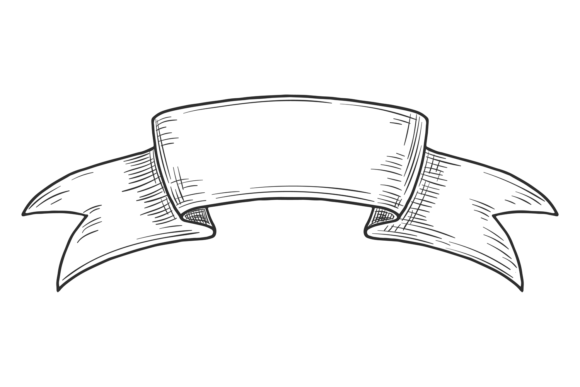
Medieval Engraving Ribbon Flag: Decorati for Vintage Design
The world of typography is vast, but certain styles carry a distinct weight, a story etched into every curve and stroke. Medieval Engraving Ribbon Flag. Decorati is one such typeface. It isn’t just a collection of letters; it’s a design asset that channels the elegance of classical engraving and the bold presence of vintage display type. For designers and creators looking to add a layer of historical sophistication to their work, this font offers a compelling solution. It blends the ornate detail of engraved serifs with the dramatic flair of decorative ribbon elements, creating a typeface with real personality.
Anatomy of a Distinctive Typeface
At its core, Medieval Engraving Ribbon Flag. Decorati is a premium display font. Its visual characteristics are immediately recognizable. The letterforms are built on a strong serif foundation, reminiscent of inscriptions found on old maps, currency, or formal certificates. What sets it apart are the intricate details—subtle cross-hatching effects and fine lines that mimic the look of metal engraving. The "ribbon flag" component adds a unique flourish, often seen in initial capitals or as part of ligatures, giving text a dynamic, almost three-dimensional quality.
This font’s personality is authoritative yet artistic. It speaks of heritage, craftsmanship, and importance. It’s not a workhorse for body text; instead, it’s a creative font designed to command attention in headlines, logos, and short, impactful statements. Its style leans heavily into vintage and classical aesthetics, making it ideal for projects that aim to evoke tradition, luxury, or a sense of established credibility. The overall appeal lies in its ability to make a design feel considered and intentional, instantly elevating the perceived value of the content it presents.
Where This Font Truly Shines
Understanding where to deploy Medieval Engraving Ribbon Flag. Decorati is key to leveraging its strengths. Its ornate nature means it thrives in contexts where display typography is paramount.
Branding and Logo Design
For businesses in sectors like craft brewing, artisanal goods, luxury services, or boutique hospitality, this font can become a cornerstone of a strong brand identity. A logo set in this typeface immediately communicates quality and tradition. Think of a distillery’s bottle label, a high-end butcher’s signage, or the masthead for a heritage publication. It works exceptionally well for monograms and standalone wordmarks where each letter can be appreciated as a piece of art. When used for a brand name, it fosters instant recognition and a perception of expertise.
Editorial and Packaging Design
In editorial design, this font excels for chapter titles, pull quotes, or section dividers in magazines, books, and annual reports. It adds a touch of classic authority without feeling stale. For packaging design, it’s a natural fit. Imagine it on coffee bags, chocolate bar wrappers, or cosmetic boxes where the goal is to suggest artisanal craftsmanship and premium ingredients. The engraved texture translates beautifully to print, especially on textured papers or with embossing and foil stamping techniques.
Digital and Social Media Applications
While rooted in historical style, this font has a place in modern digital spaces. It can make a website’s hero section or a call-to-action button stand out dramatically. For social media graphics, it’s perfect for creating quote images, announcement banners, or profile branding that needs to cut through the noise. Its visual weight ensures it remains readable even at smaller sizes on a screen, though careful testing is always recommended. Using it for a podcast cover art or a YouTube channel banner can instantly establish a sophisticated visual theme.
Practical Guidance for Implementation
Adopting a font like Medieval Engraving Ribbon Flag. Decorati requires more than just installation. Here’s how to integrate it effectively into your projects.
Evaluating Project Fit and Pairing
First, assess the project’s tone. This font suits formal, traditional, or luxury concepts better than minimalist or ultra-modern tech startups. Its strong personality means it needs space to breathe. Avoid using it for long paragraphs. The key to using it successfully is in font pairing. Balance its complexity with a clean, simple sans serif font for body text. A modern sans serif provides a contemporary counterpoint and ensures overall readability. For a more classic pairing, a simple serif font with minimal ornamentation can work, but caution is needed to avoid visual competition.
Testing for Readability and Hierarchy
Always test the font in context. View it at the intended size, on the intended medium—whether that’s a printed brochure or a mobile screen. Check the clarity of individual characters, especially at smaller scales. The decorative elements should enhance, not hinder, legibility. Use this font to establish a clear visual hierarchy. It’s your tool for the most important headline or brand name, guiding the viewer’s eye to the primary message first.
Ultimately, Medieval Engraving Ribbon Flag. Decorati is more than just a decorative option. It’s a strategic design tool. When chosen for the right project and applied with thoughtful consideration for pairing and context, it can significantly enhance brand perception, create engaging visual narratives, and deliver a professional polish that resonates with your audience. It’s a font that doesn’t just display words; it helps tell a story of quality and heritage.